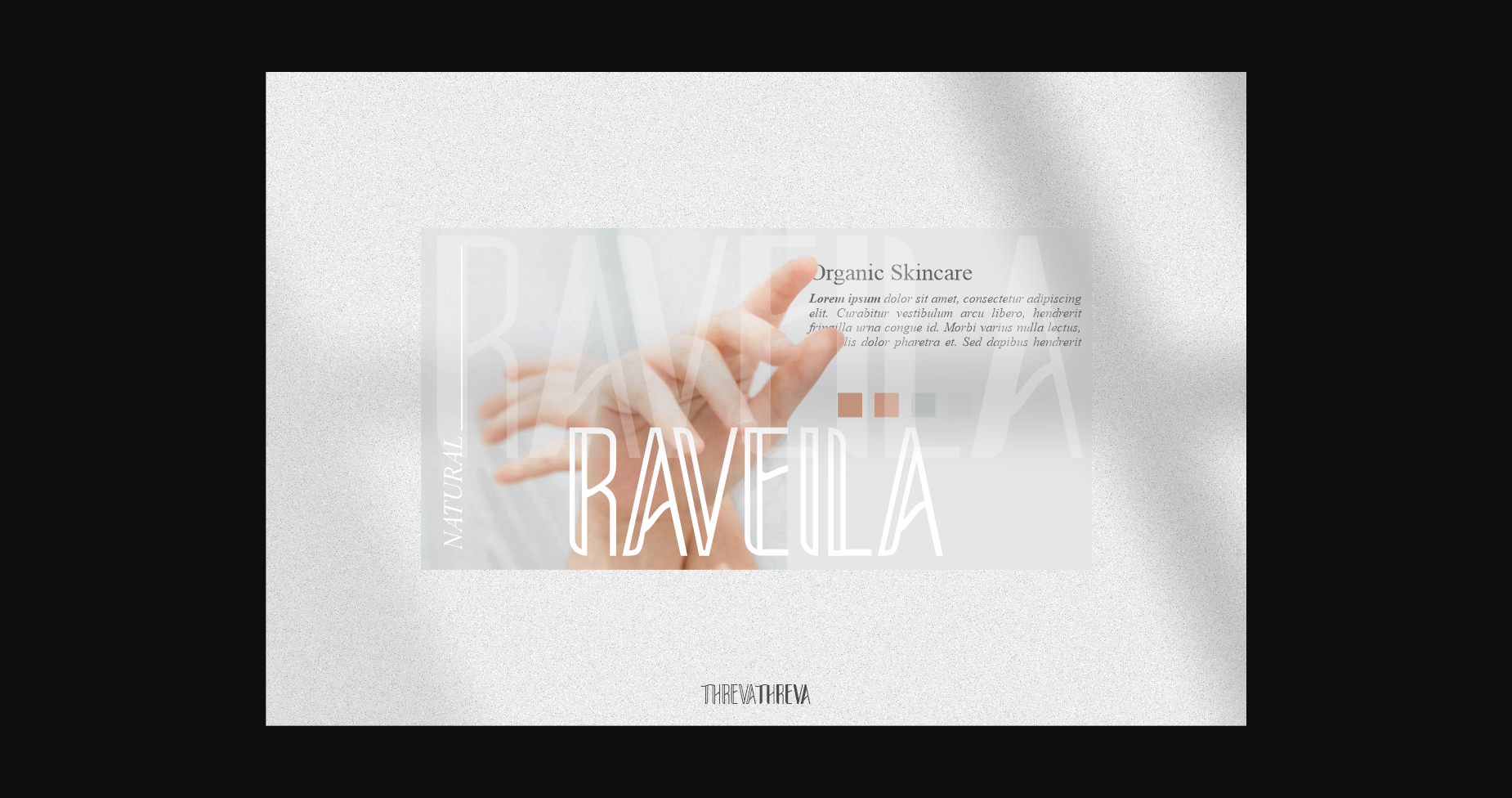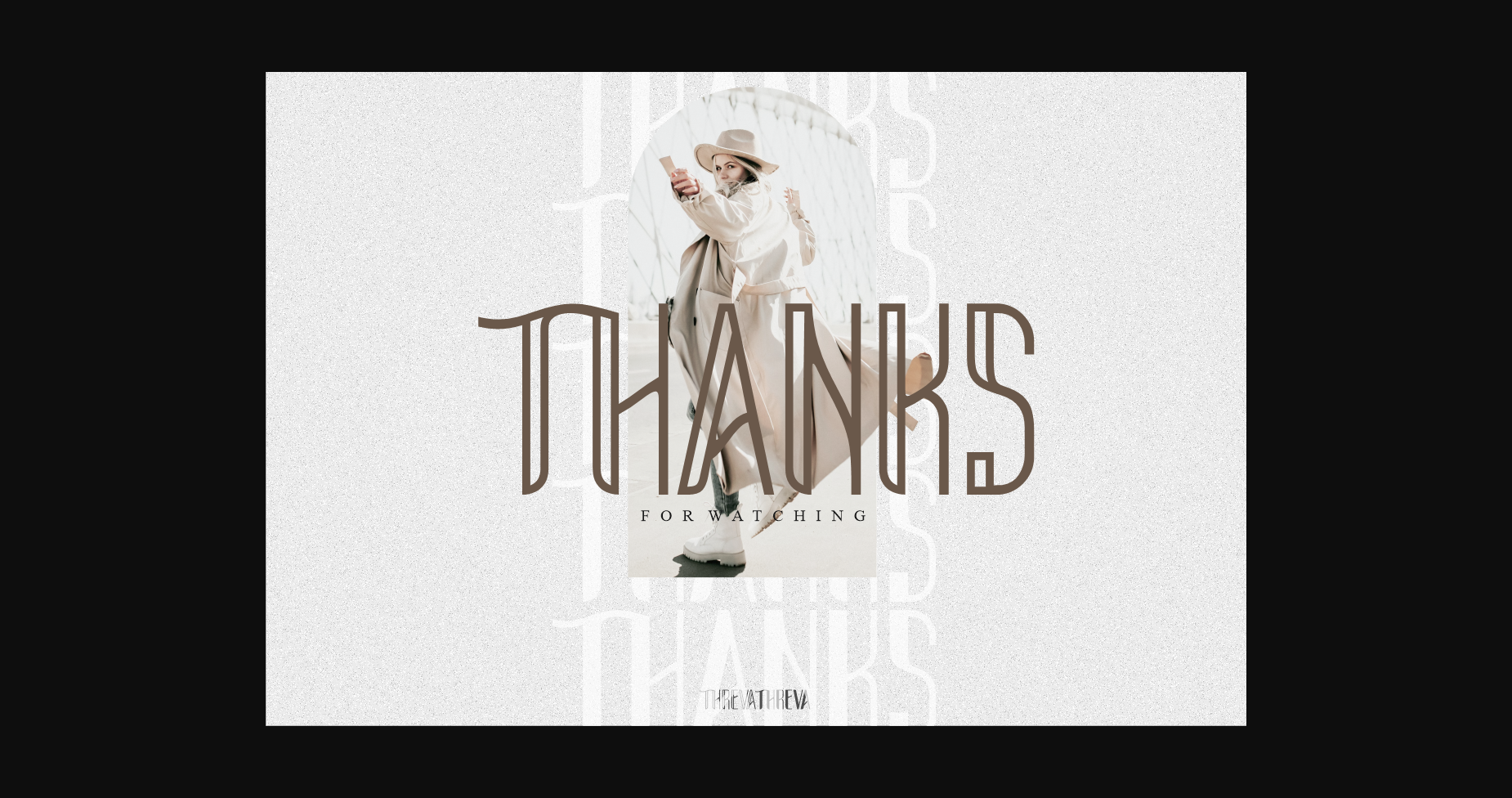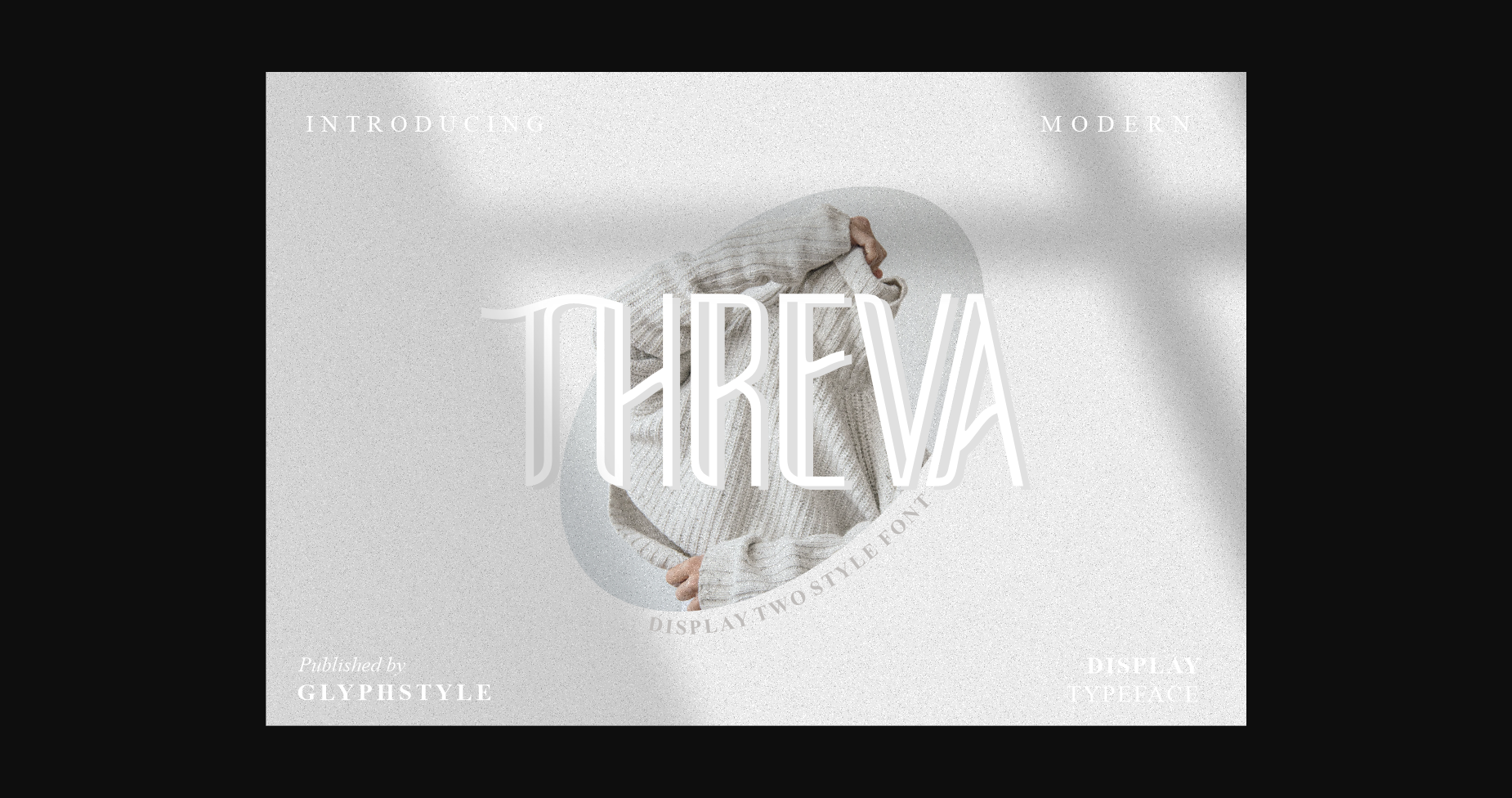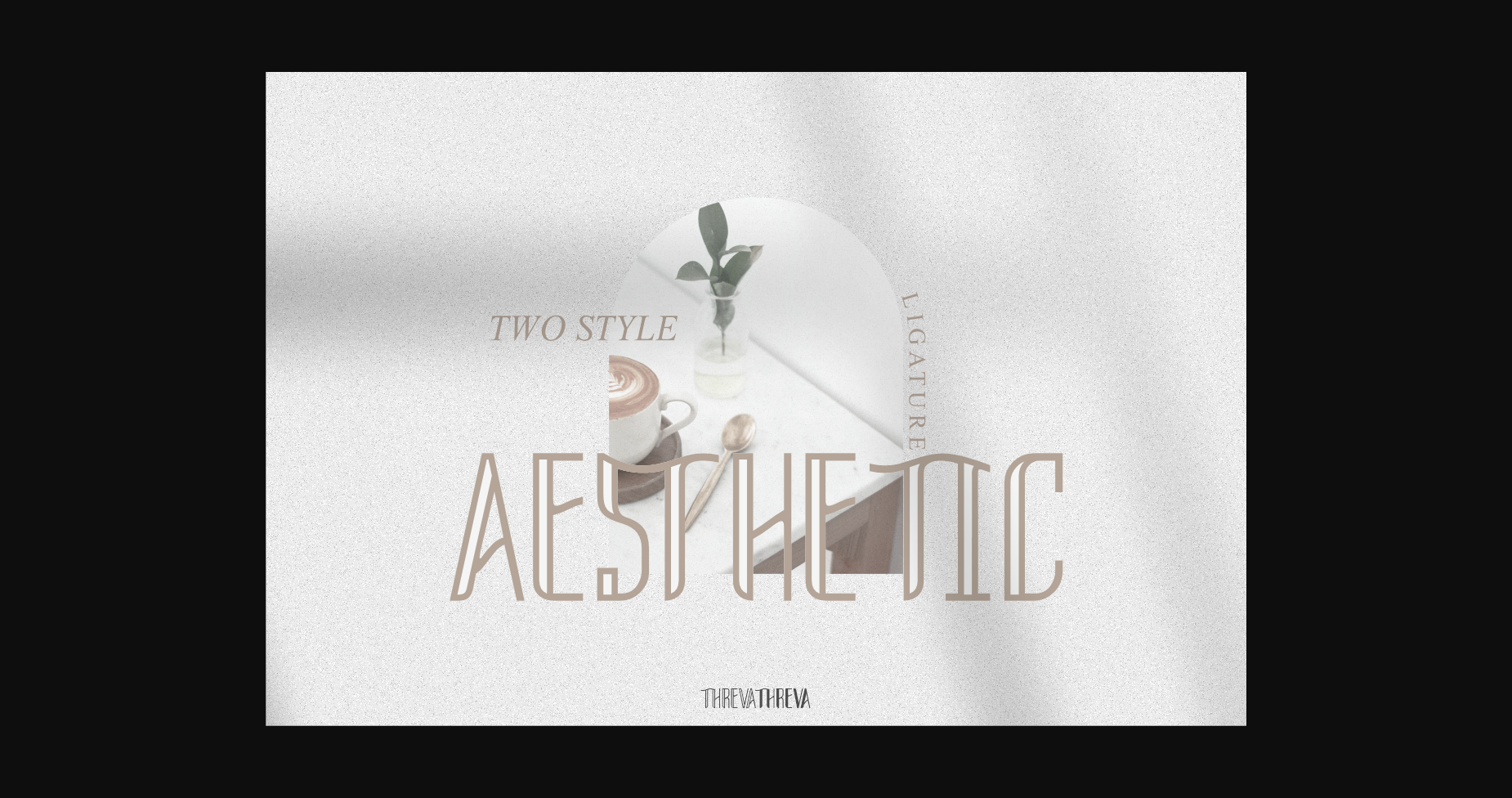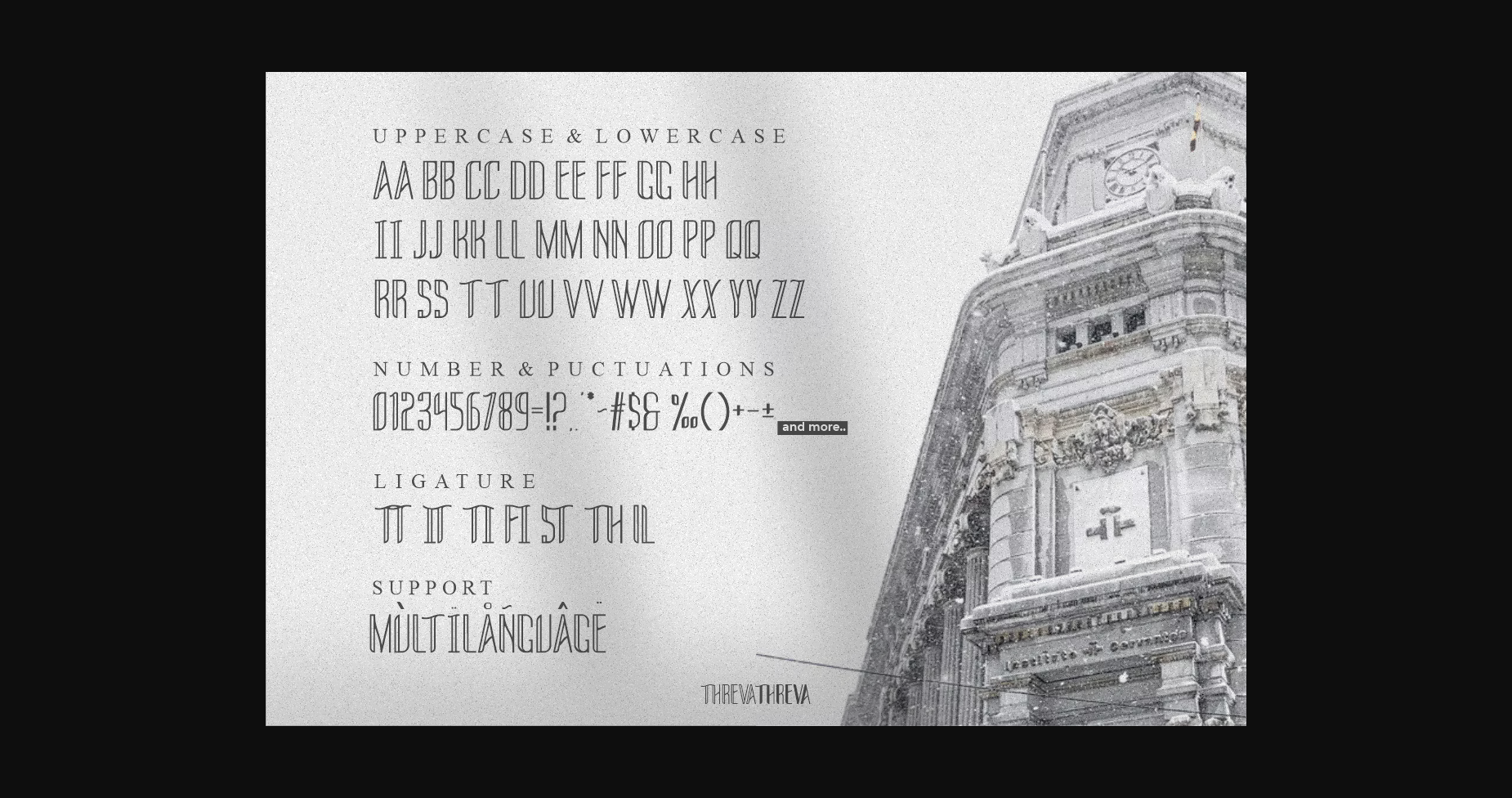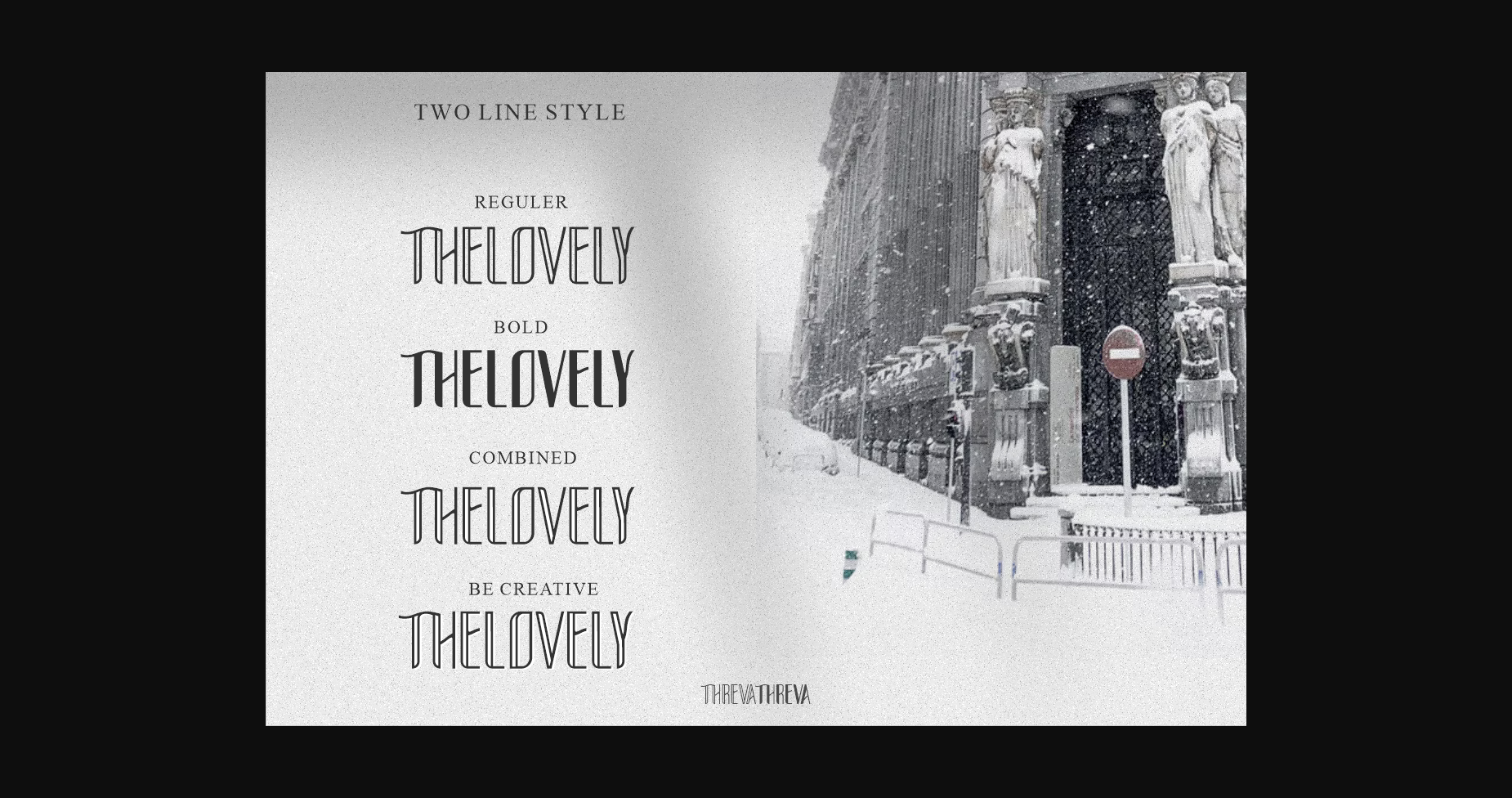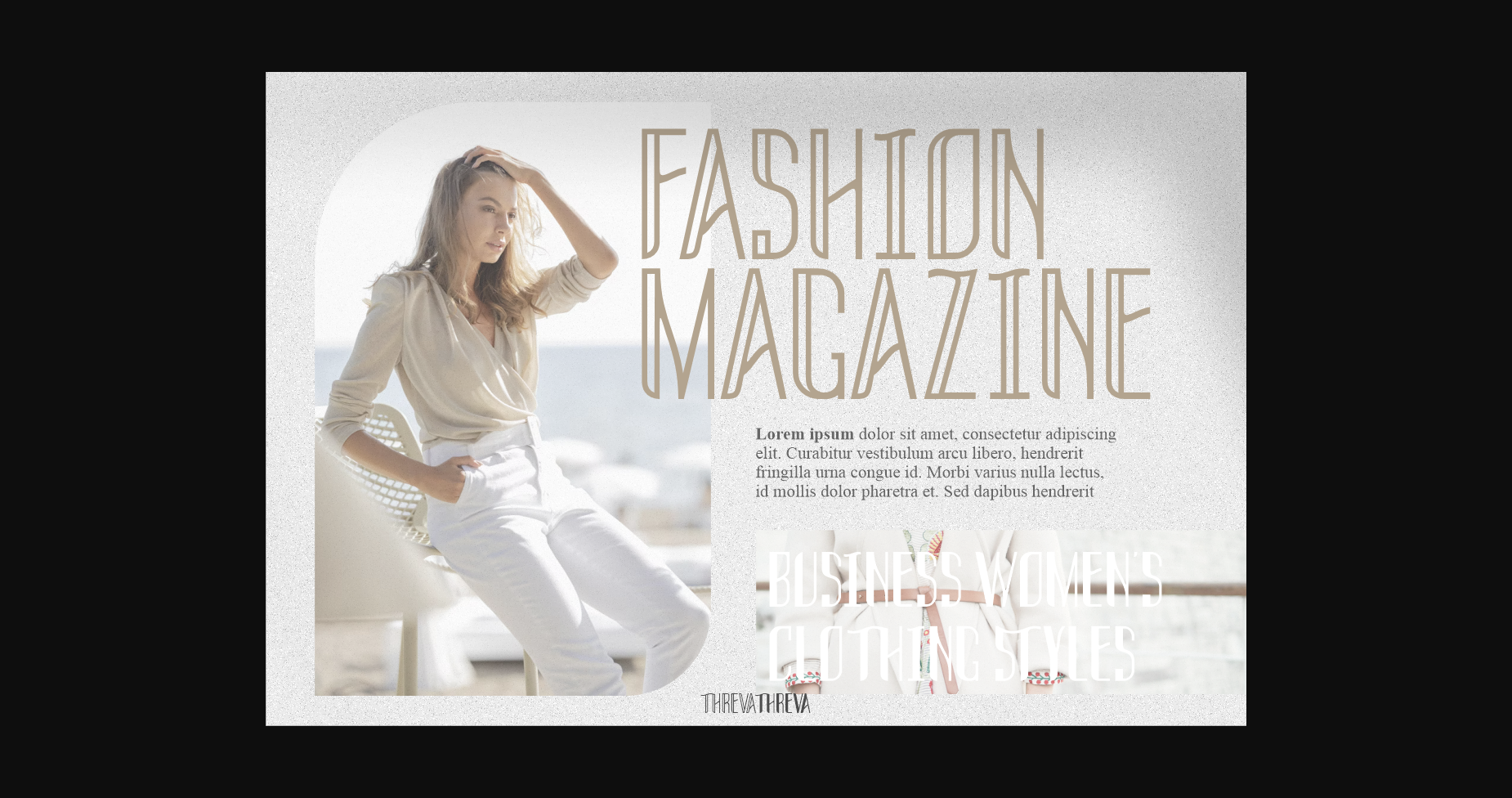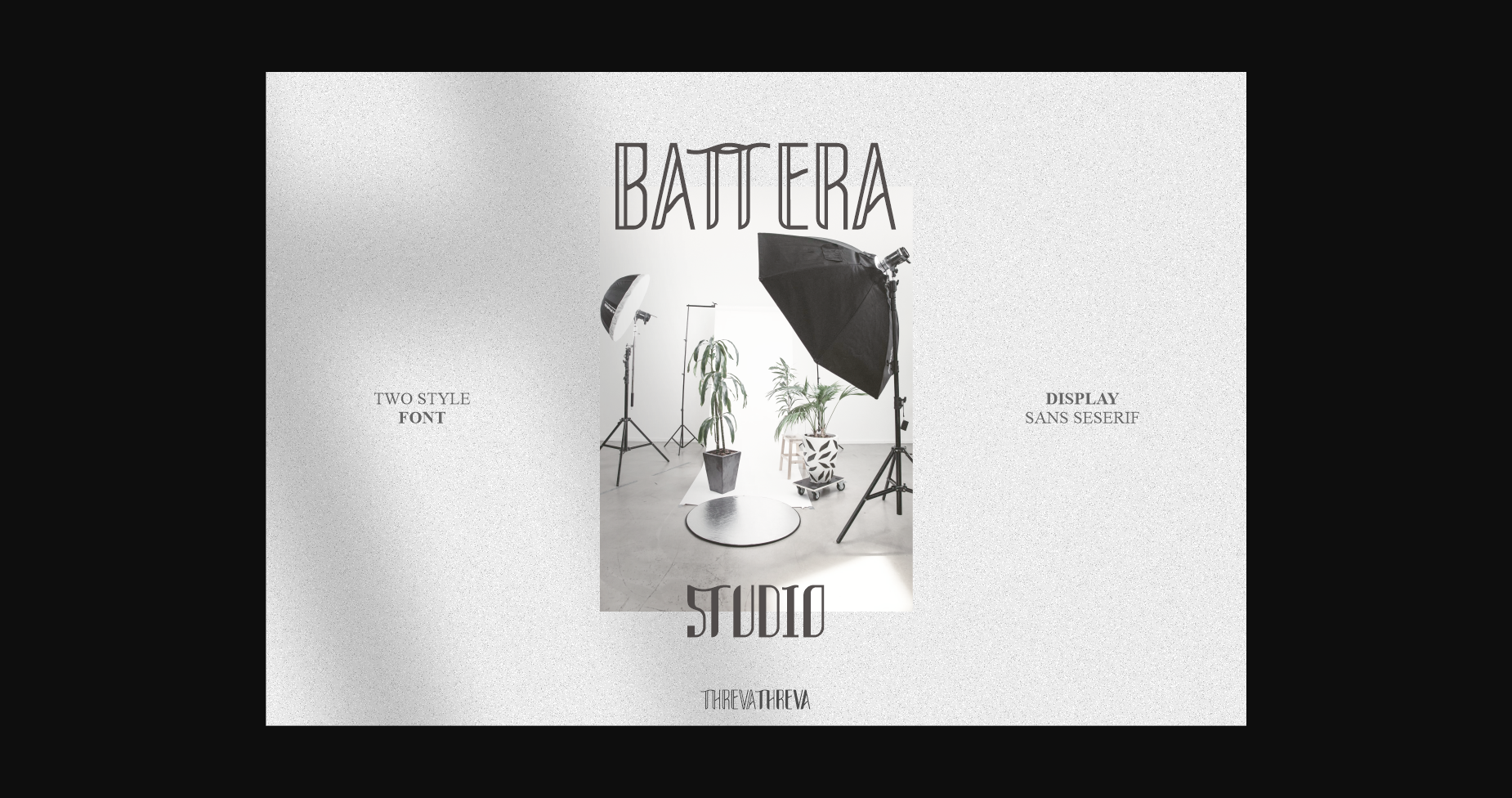
Threva Sans Serif Two Style Font
About Threva Sans Serif Two Style Font
Threva is a stylish sans serif font with 2 styles, solid and outline. You can combine the two into something creative.
Threva is perfect for branding projects, logos, wedding designs, social media posts, advertisements, product packaging, product designs, labels, photography, watermarks, invitations, stationery, and any project that requires a sans serif decorative font.